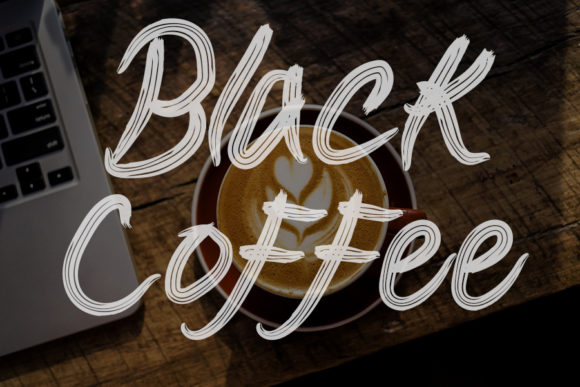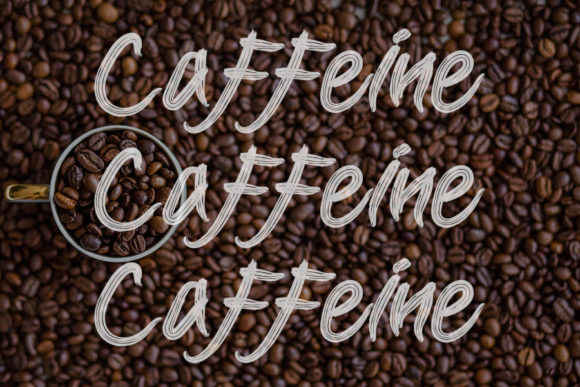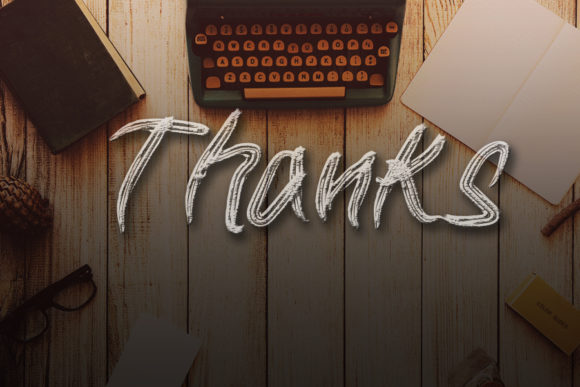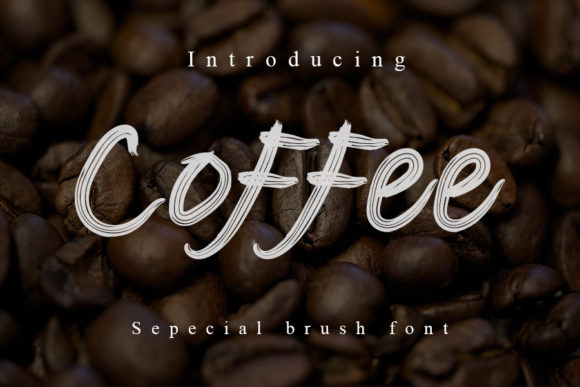
Coffee Font: The Ultimate Brushed Display Font for Designers
Are you tired of using the same old fonts in your designs? Look no further than Coffee Font, a cool brushed display font that’s sure to elevate your creations. With its perfect blend of trendiness and versatility, Coffee Font is an incredibly valuable asset to add to your font library.
What is Coffee Font?
Coffee Font is a beautifully crafted brushed display font that’s designed to make a statement. Its unique, hand-crafted look gives it a distinctive edge that’s perfect for designers who want to add a touch of personality to their work. Whether you’re creating a logo, poster, or social media graphic, Coffee Font is the perfect choice.
Key Features of Coffee Font
- Trendy and Modern: Coffee Font boasts a fresh, modern look that’s sure to turn heads. Its trendy design makes it perfect for designers who want to stay ahead of the curve.
- Versatile: No matter the topic or theme, Coffee Font is incredibly versatile and can be used in a wide range of design projects.
- Brushed Texture: The font’s brushed texture gives it a unique, hand-crafted look that’s perfect for adding a touch of personality to your designs.
- Easily Readable: Despite its bold and trendy design, Coffee Font is surprisingly easy to read, making it perfect for use in a variety of design applications.
Why Designers Love Coffee Font
So, why do designers love Coffee Font? For starters, its unique and trendy design makes it a great way to add some personality to your work. Additionally, its versatility means that it can be used in a wide range of design projects, from logos and posters to social media graphics and more.
How to Use Coffee Font in Your Designs
- Pair it with Other Fonts: Coffee Font pairs well with a variety of other fonts, making it easy to create stunning contrast and visual interest in your designs.
- Experiment with Colors: The font’s brushed texture looks great in a variety of colors, so don’t be afraid to experiment and find the perfect hue for your design.
- Use it as a Statement Piece: Coffee Font is bold and eye-catching, making it perfect for use as a statement piece in your designs.
Coffee Font for Crafters and DIY Enthusiasts
Coffee Font isn’t just for designers – it’s also perfect for crafters and DIY enthusiasts who want to add a personal touch to their projects. Whether you’re creating handmade cards, scrapbooking, or DIY signs, Coffee Font is a great way to add some personality and style to your work.
In conclusion, Coffee Font is an incredibly valuable asset to add to your font library. Its trendy and modern design, versatility, and easily readable texture make it perfect for a wide range of design projects. Whether you’re a designer, crafter, or DIY enthusiast, Coffee Font is sure to elevate your creations and help you stand out from the crowd.